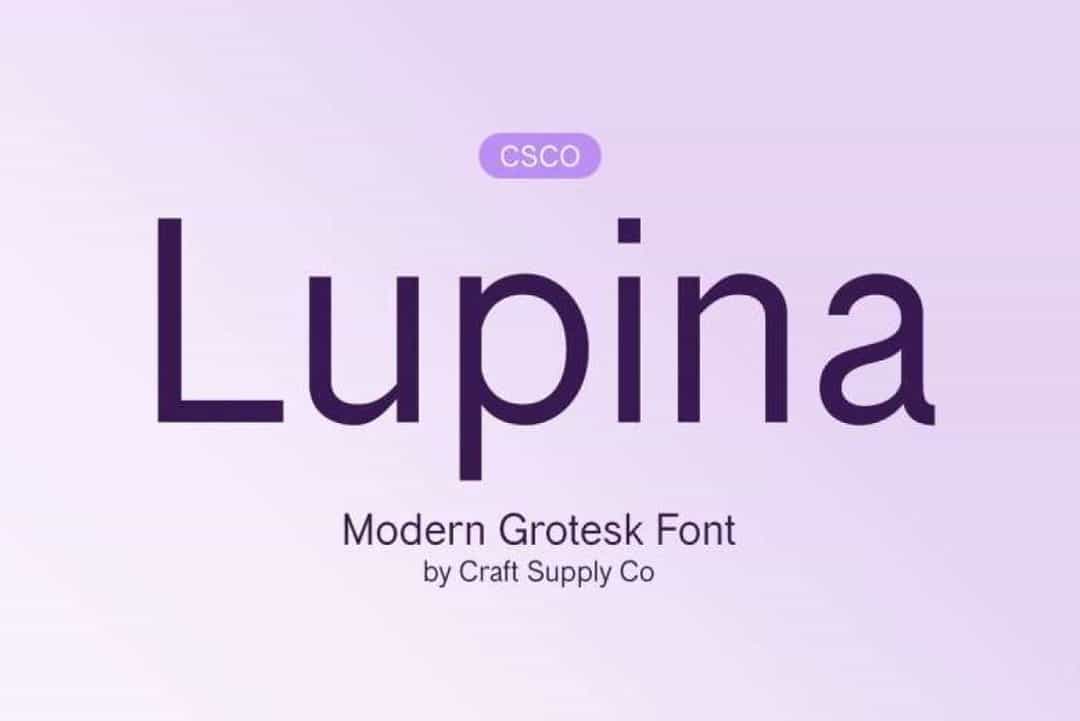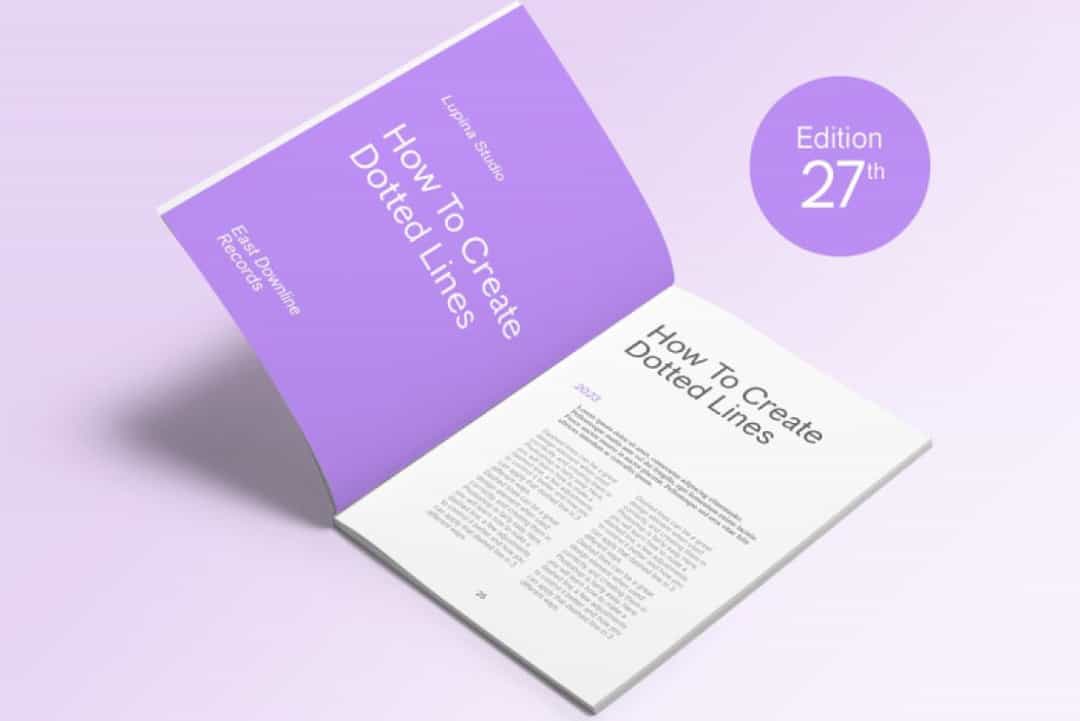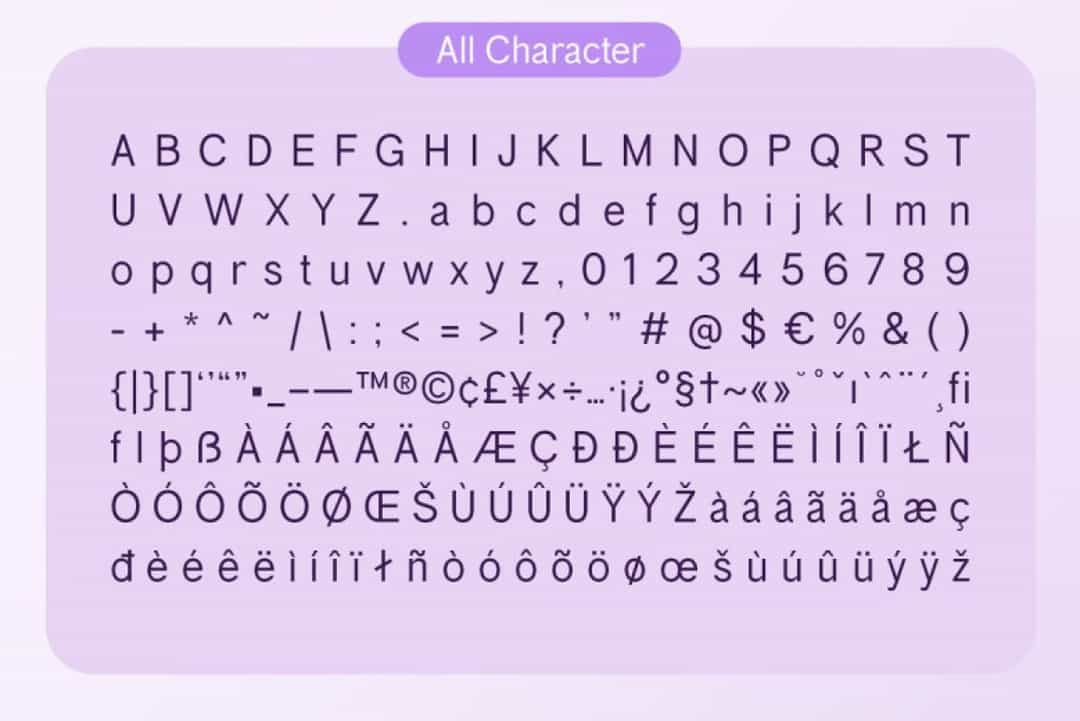
Lupina strikes the perfect balance between contemporary sophistication and timeless simplicity, providing your designs with modern yet clean style. This sleek sans-serif font is sure to enhance them for maximum impact!